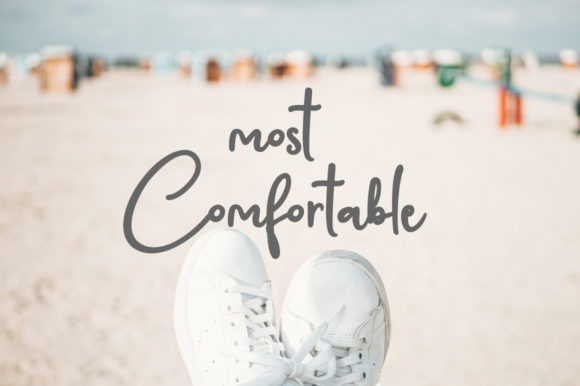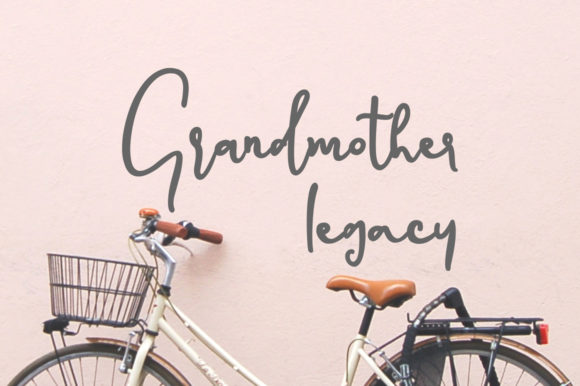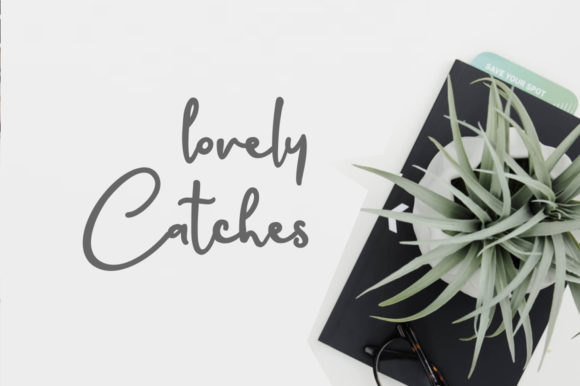
The Canadia Font: Adding a Touch of Whimsy to Your Creative Projects
Have you ever found yourself stuck in a creative rut, searching for the perfect font to bring your project to life? It’s a feeling many designers can relate to. For me, it’s the moment when I stumble upon a unique font that sparks inspiration and sets my imagination ablaze.
| 👤 Author | BONJOURTYPE |
One such font that has captured my heart is the Canadia Font – a beautiful, cursive script font that exudes romance and elegance. With its versatility and wide range of applications, from greeting cards to headlines, this font is a valuable addition to any designer’s toolkit. Whether you’re working on a wedding invitation or a whimsical children’s book, the Canadia Font is sure to add a touch of magic to your project.
Canadia Font Key Features
- Unique Character Set: Canadia Font features a unique character set, including a wide range of diacritical marks, ligatures, and special characters, making it an excellent choice for languages that require complex typography.
- High-Quality Typography: Canadia Font is designed with high-quality typography in mind, featuring clean lines, precise letterforms, and a clear, readable design that is perfect for body text, headings, and titles.
- Customizable and Extensive Glyphs: The font includes a vast array of glyphs, including alternate characters, swashes, and ornaments, allowing users to add a touch of personality and creativity to their designs.
Designer Review: Canadia Font
Overall, I’d say Canadia Font is a decent addition to any designer’s toolkit. Here’s what I like:
- ✨ The font’s unique blend of modern and vintage elements makes it a great choice for projects that require a touch of nostalgia.
- ✨ Canadia Font’s wide range of weights and styles allows for a lot of creative flexibility.
- ✨ The font’s clear and legible design makes it easy to read, even at smaller font sizes.
However, I do have some reservations:
- ⚠️ In some cases, the font’s unique style can feel overbearing or distracting, especially when used for large blocks of text.
- ⚠️ The font’s limited support for non-English languages may be a concern for designers working on multilingual projects.
- ⚠️ Some of the font’s weights and styles can feel inconsistent or unevenly spaced.
Overall, I’d give Canadia Font 3.5 out of 5 stars. While it’s not perfect, it’s a solid choice for designers looking for a unique and versatile font. With some careful selection and styling, Canadia Font can add a lot of character to a project.
Canadia Font is ideal for:
- Modern and minimalist designs
- Bold and eye-catching titles
- Creating a consistent brand identity
Alternatives to Canadia Font
Bebas Neue is a modern sans-serif font designed by Ryoichi Tsunekawa. It is a great alternative to Canadia Font for projects that require a clean and minimalist look. Bebas Neue is more versatile and has a wider range of weights, making it suitable for various design applications.
Comparison to Canadia Font: Bebas Neue is more geometric and has a more uniform font width, whereas Canadia Font has a more organic feel. Bebas Neue is also more suitable for digital design, while Canadia Font is more commonly used in print design.